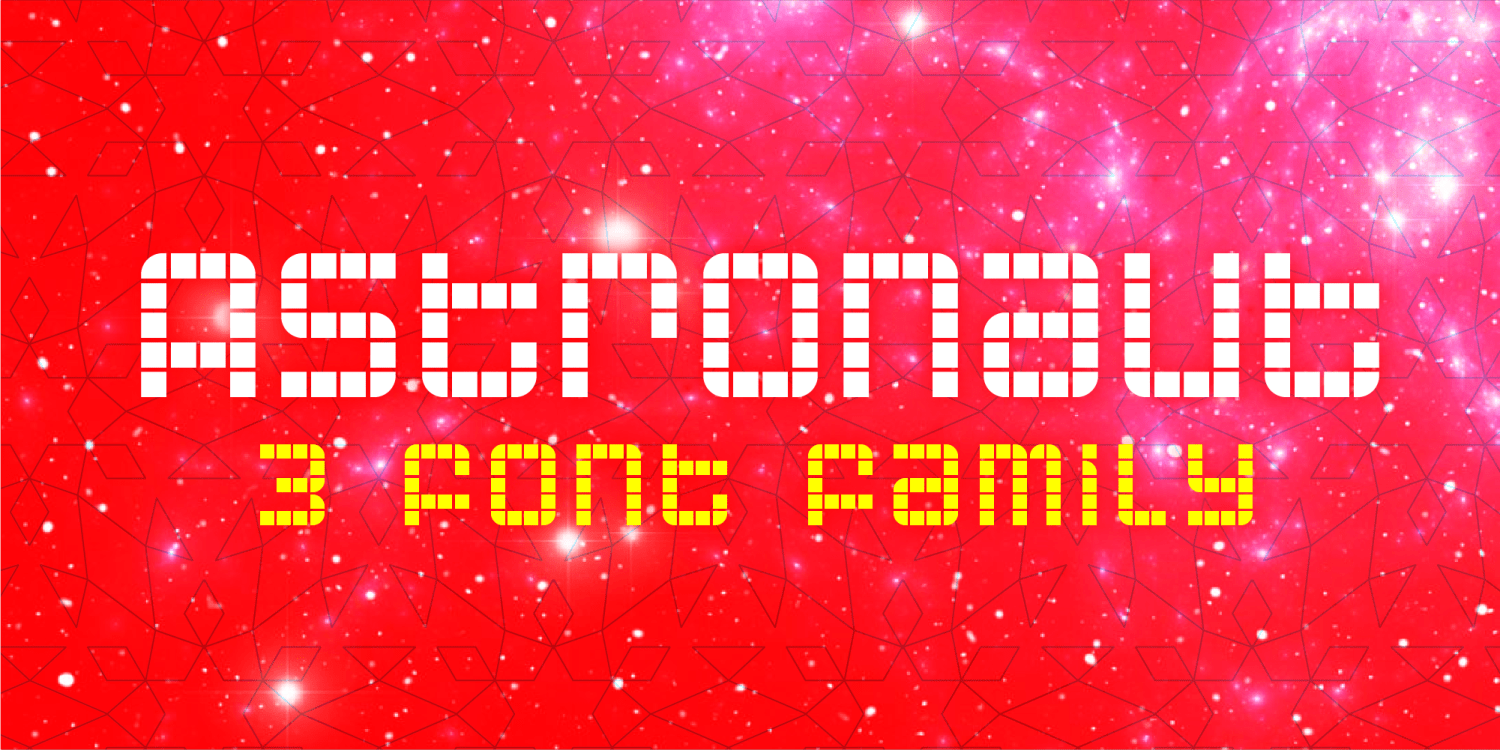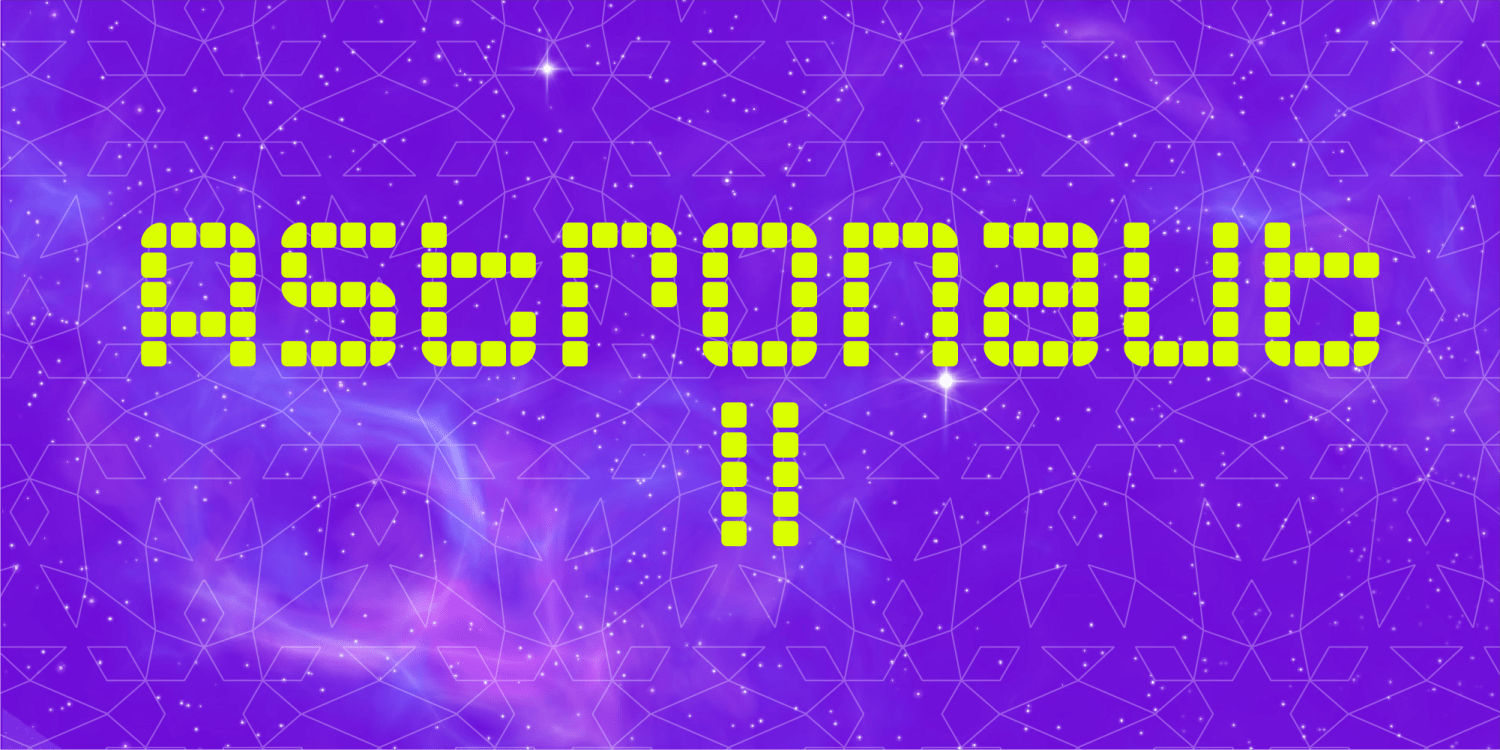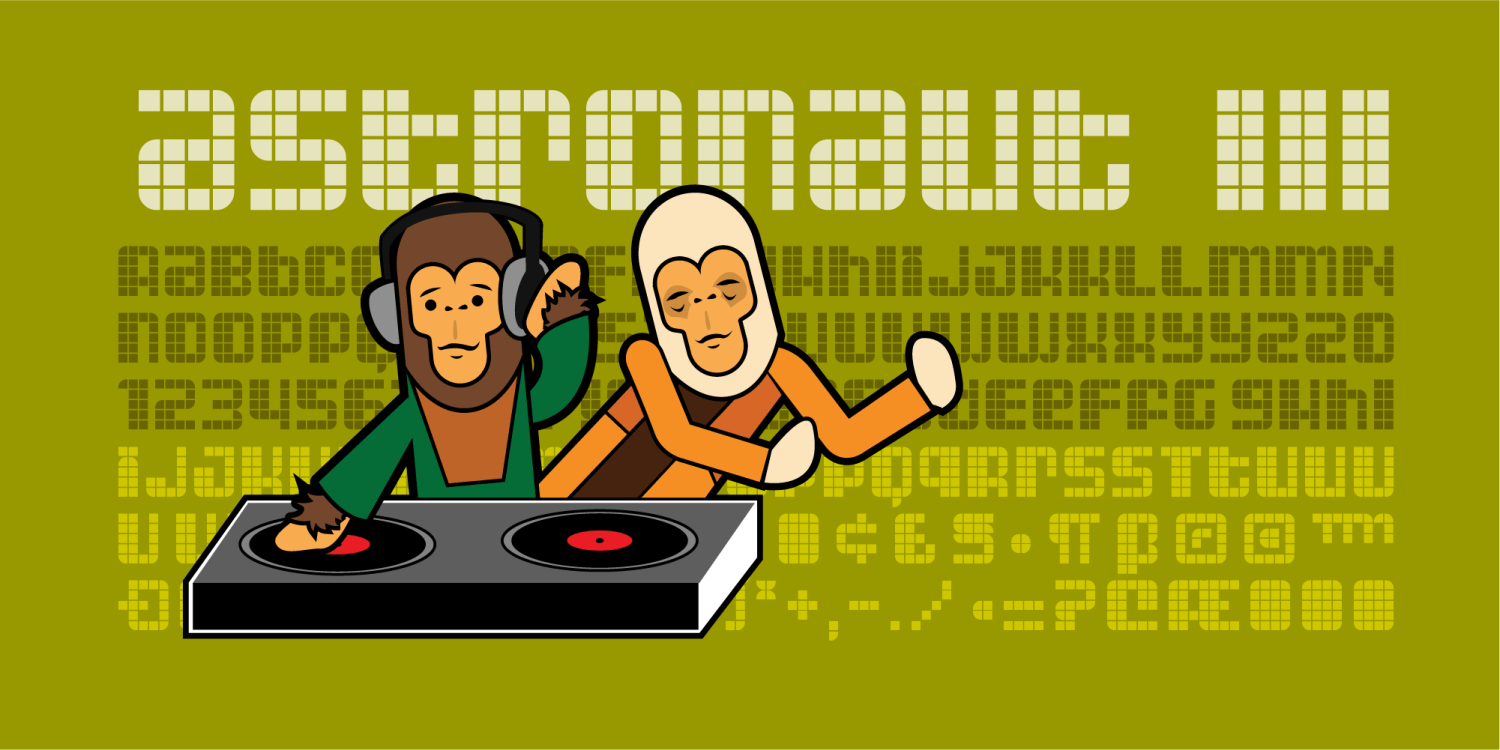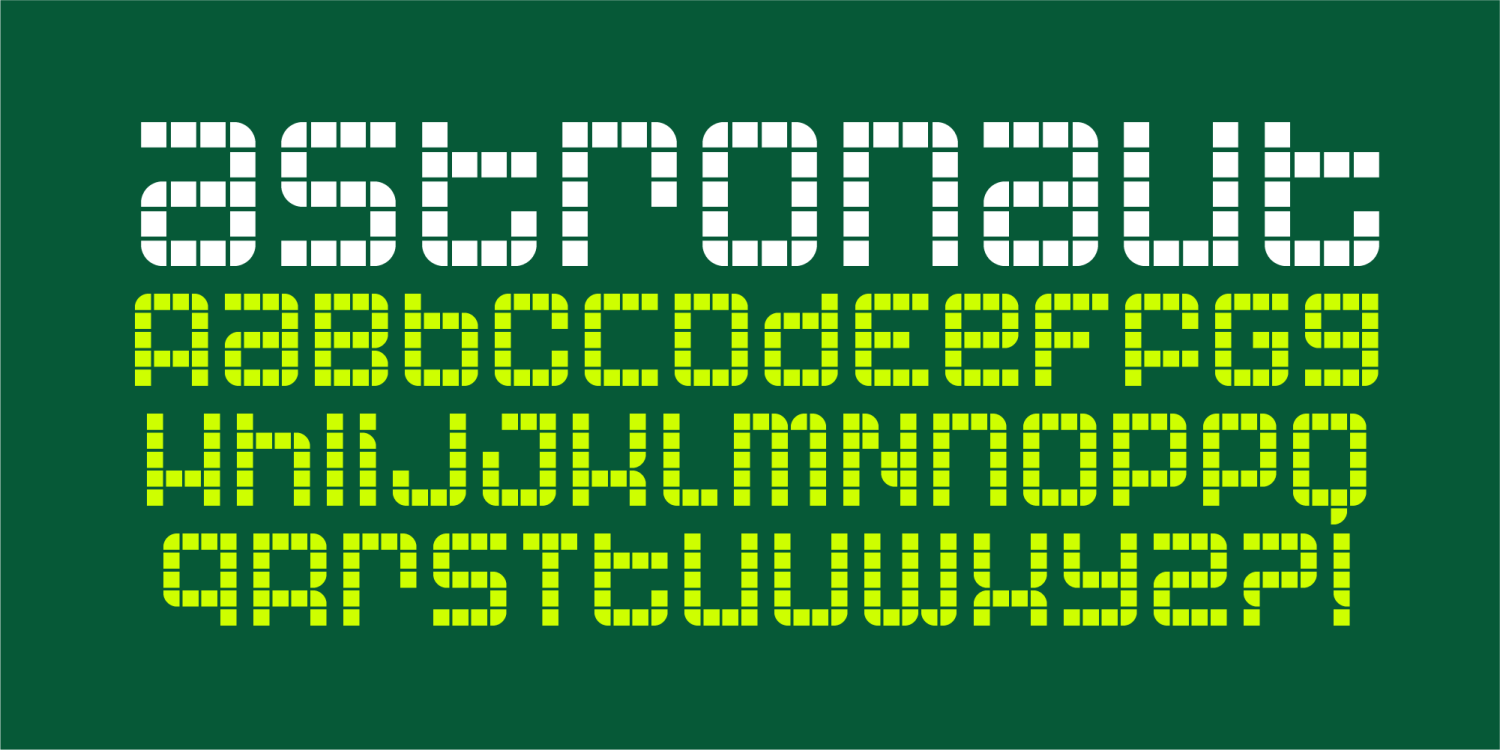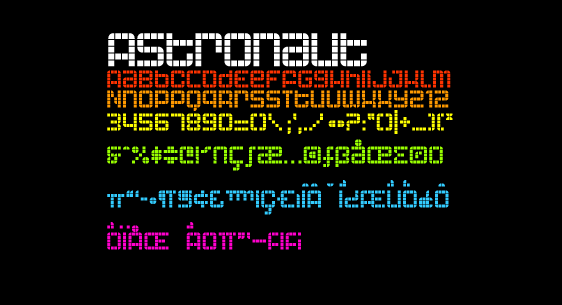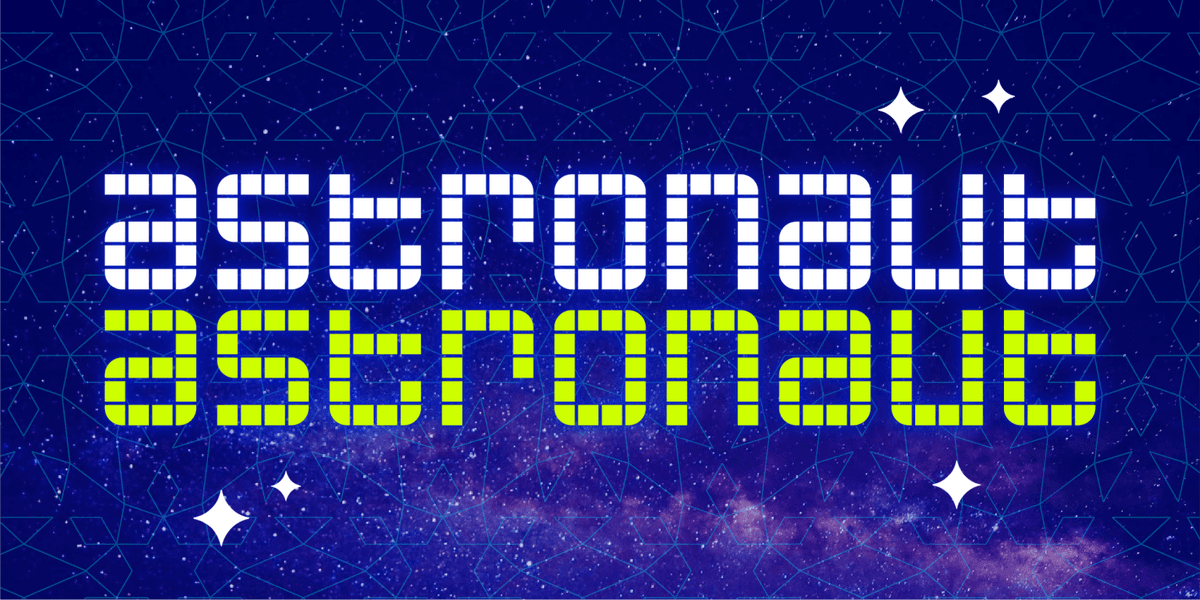
In an effort to beef up my street cred, I'm busting out some urban techno typefaces. Astronaut happens to be one of those fonts that is going to redefine my rep as a hardcore font makin' gangsta. This homeslice is packaged with Astronaut II, word to your moms.